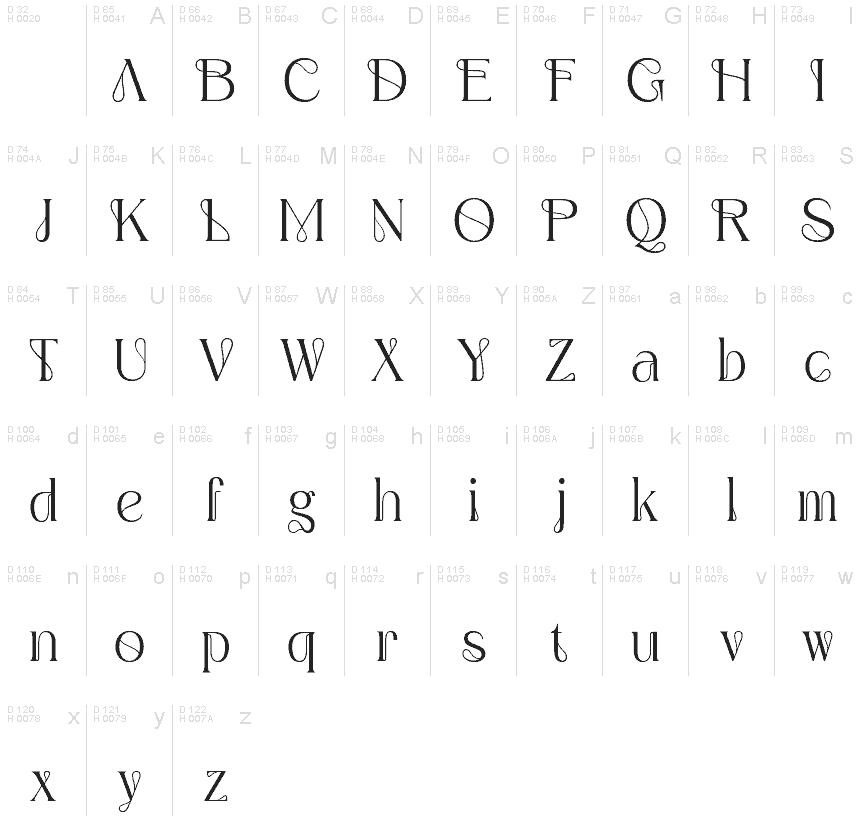
Lucilo Demo Regular
Lucilo font is the work of Craft Supply Co and it is a vintage serif that combines geometric elements with unique curvature for an original elegant style. This ornamental free font features decorative flair and appears sophisticated when used with its artistic expressions.
Add Lucilo to branding designs, packaging projects, magazine covers, posters, decals, logos, signage designs, menus and banners. The modern serif font can also appear on business cards letterheads for a cohesive visual appearance of an identity design project businesses require flat atmospheres where it is hard to capture attention.